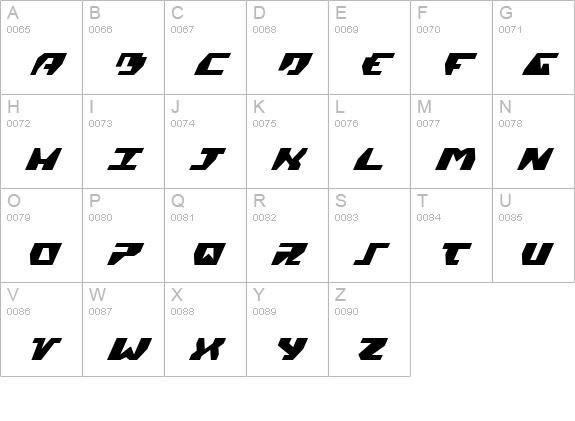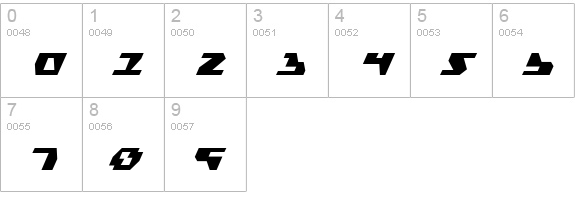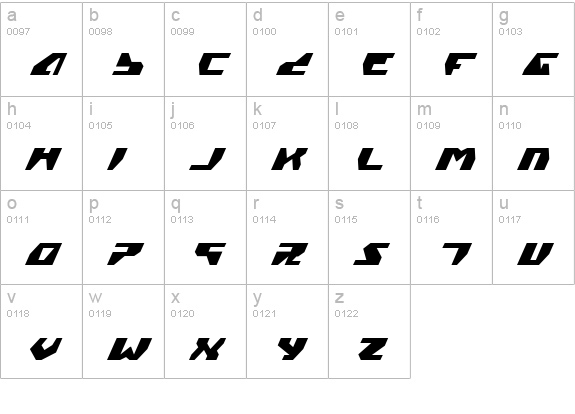
Gyrfalcon Italic is a distinctive, italic variant in the Gyrfalcon typeface family \xE2\x80\x94 well suited to design and typography projects.
Gyrfalcon Italic font is a stunning and elegant typeface that exudes sophistication and style. With its sleek and modern design, Gyrfalcon Italic is perfect for adding a touch of class to any project. The italicized letters create a sense of motion and flow, making this font ideal for conveying a sense of movement and energy. What sets Gyrfalcon Italic font apart is not only its beauty but also the fact that it is completely free to download. You can easily access this exquisite font at FontsMarket.com, where you can enhance your designs with this high-quality typeface without any cost. Whether you are working on a professional project or a personal endeavor, Gyrfalcon Italic font will elevate your work and leave a lasting impression.